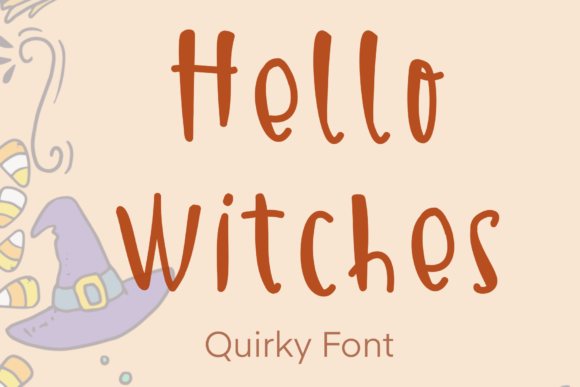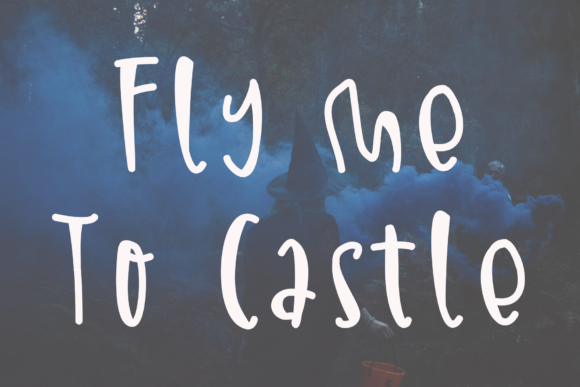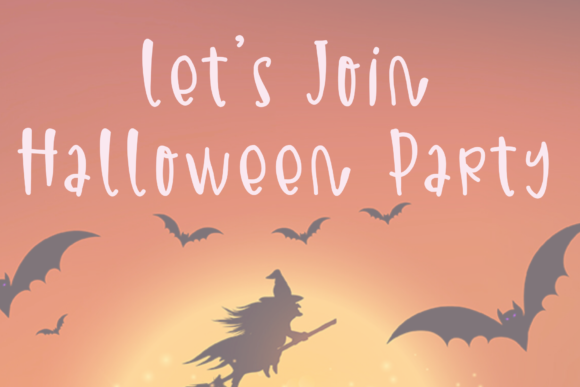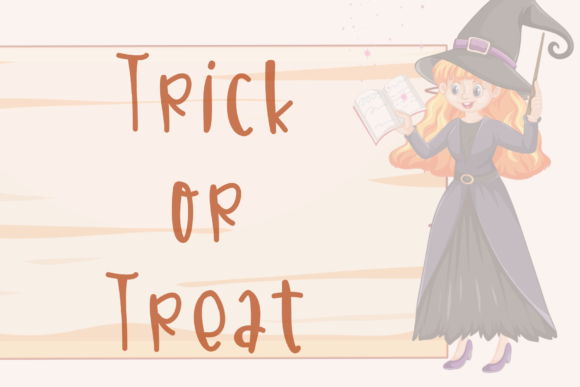
About Hello Witches Font
Hello Witches is a playful and quirky handwritten font. It is the best choice for creating eye catching logos, branding and quotes. Every letter has a unique and beautiful touch, which will make your design come alive!